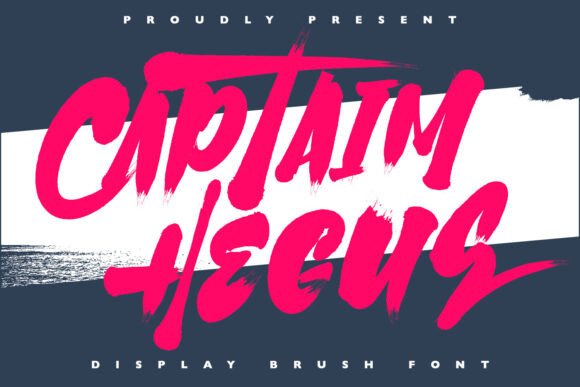
Unleash Your Creativity with Captain Hegus Font: The Bold and Energetic Brush Font
Are you tired of using the same old fonts in your designs? Look no further than Captain Hegus, a bold and energetic brush font that’s sure to make your work stand out. With its unstoppable attitude and rebellious flair, this display typeface is perfect for designers who want to add a high-impact punch to their projects. In this article, we’ll take a closer look at Captain Hegus and explore its features, uses, and benefits.
A Font that Commands Attention
Captain Hegus is a font that demands attention. Its dynamic brush strokes and raw texture give it a powerful flow that’s impossible to ignore. Whether you’re designing a music poster, streetwear branding, or sports title, this font is sure to make a statement. Its bold and energetic personality is infectious, and it’s sure to inspire your creativity and take your designs to the next level.
Key Features of Captain Hegus
So, what makes Captain Hegus so special? Here are just a few of its key features:
- Dynamic Brush Strokes: Captain Hegus features dynamic brush strokes that give it a raw, textured look. This font is perfect for designers who want to add a touch of authenticity to their work.
- Rebellious Flair: This font has a rebellious attitude that’s perfect for designers who want to push the boundaries of conventional design.
- High-Impact Punch: Captain Hegus is designed to make a statement. Its bold and energetic personality is sure to grab attention and leave a lasting impression.
Uses for Captain Hegus
So, what can you use Captain Hegus for? The possibilities are endless, but here are a few ideas to get you started:
- Music Posters: Captain Hegus is perfect for music posters, album covers, and other music-related designs. Its bold and energetic personality is sure to grab attention and make your design stand out.
- Streetwear Branding: This font is also great for streetwear branding, logos, and packaging. Its rebellious attitude and raw texture make it perfect for designers who want to create a bold and edgy look.
- Sports Titles: Captain Hegus is ideal for sports titles, jerseys, and other sports-related designs. Its high-impact punch and energetic personality make it perfect for designers who want to create a dynamic and attention-grabbing design.
Benefits of Using Captain Hegus
So, why should you use Captain Hegus in your designs? Here are just a few benefits:
- Adds a Touch of Authenticity: Captain Hegus’s raw texture and dynamic brush strokes give it an authentic, hand-crafted look that’s perfect for designers who want to add a touch of realism to their work.
- Increases Visibility: This font is designed to grab attention and make a statement. Its bold and energetic personality is sure to increase visibility and make your design stand out.
- Versatile: Captain Hegus is a versatile font that can be used in a variety of designs, from music posters to streetwear branding.
In conclusion, Captain Hegus is a bold and energetic brush font that’s perfect for designers who want to add a high-impact punch to their work. Its dynamic brush strokes, raw texture, and rebellious attitude make it ideal for music posters, streetwear branding, sports titles, and any design that needs a bold and attention-grabbing look. With its versatility, authenticity, and visibility, Captain Hegus is a font that’s sure to take your designs to the next level.